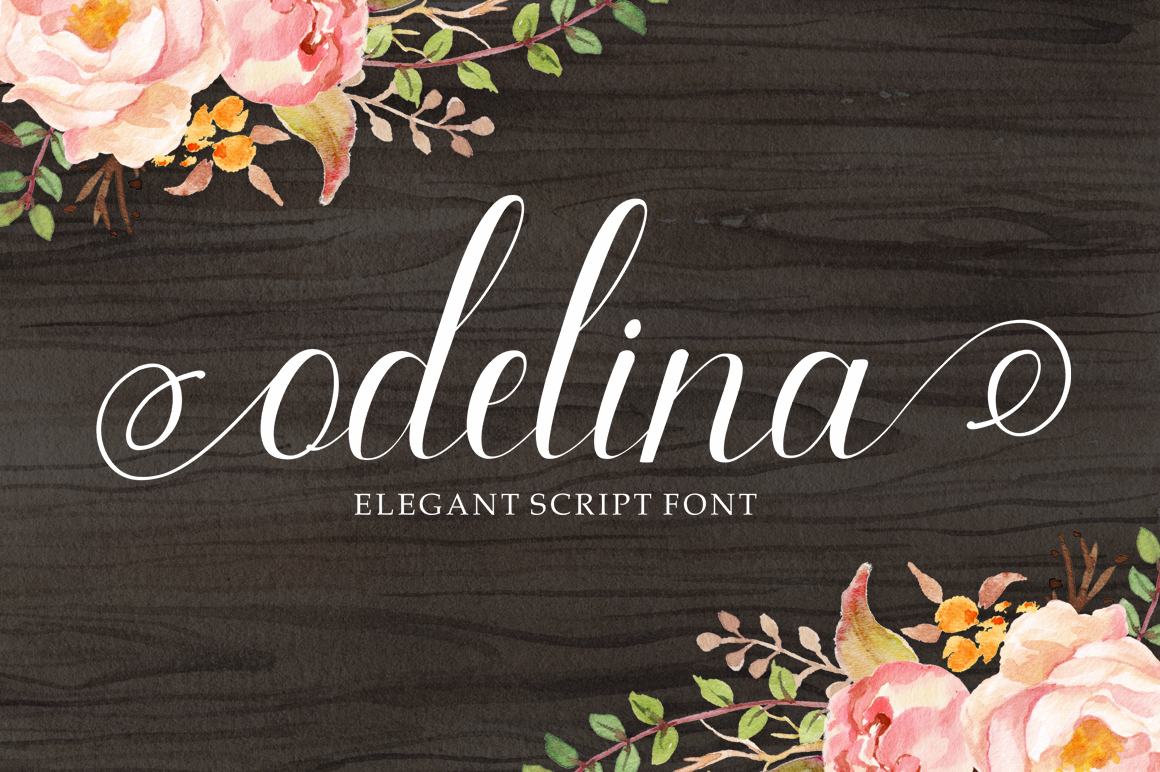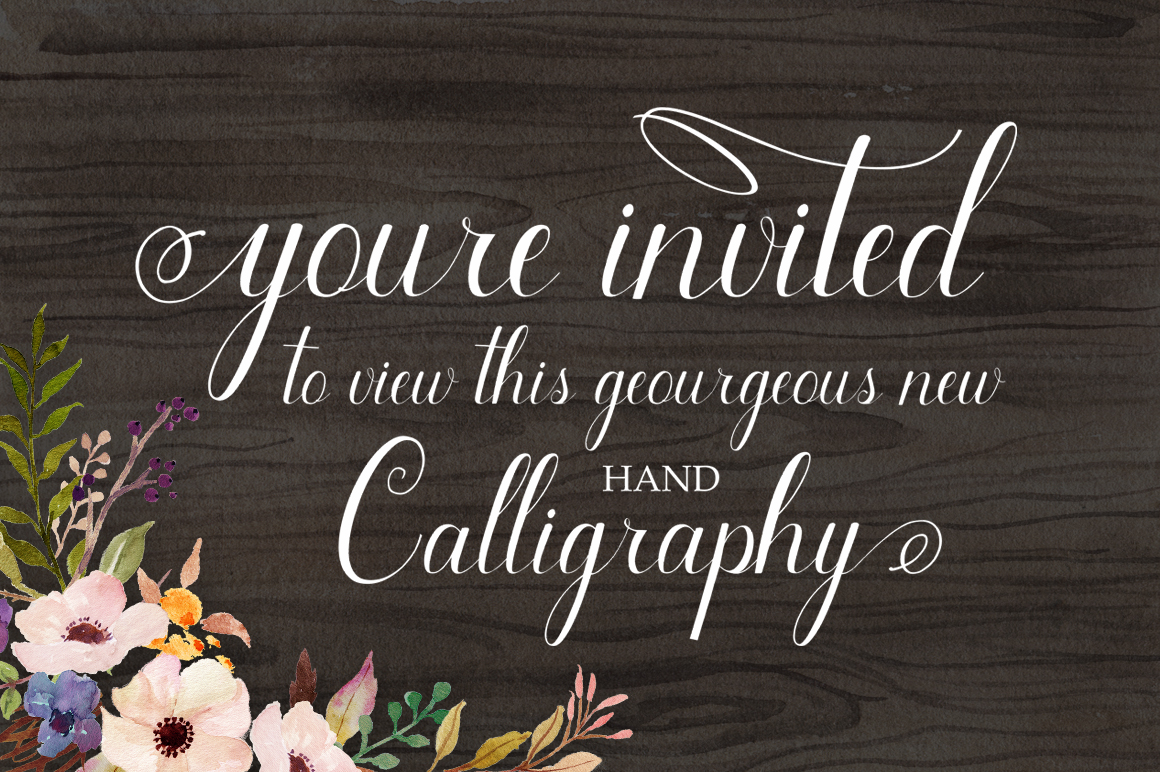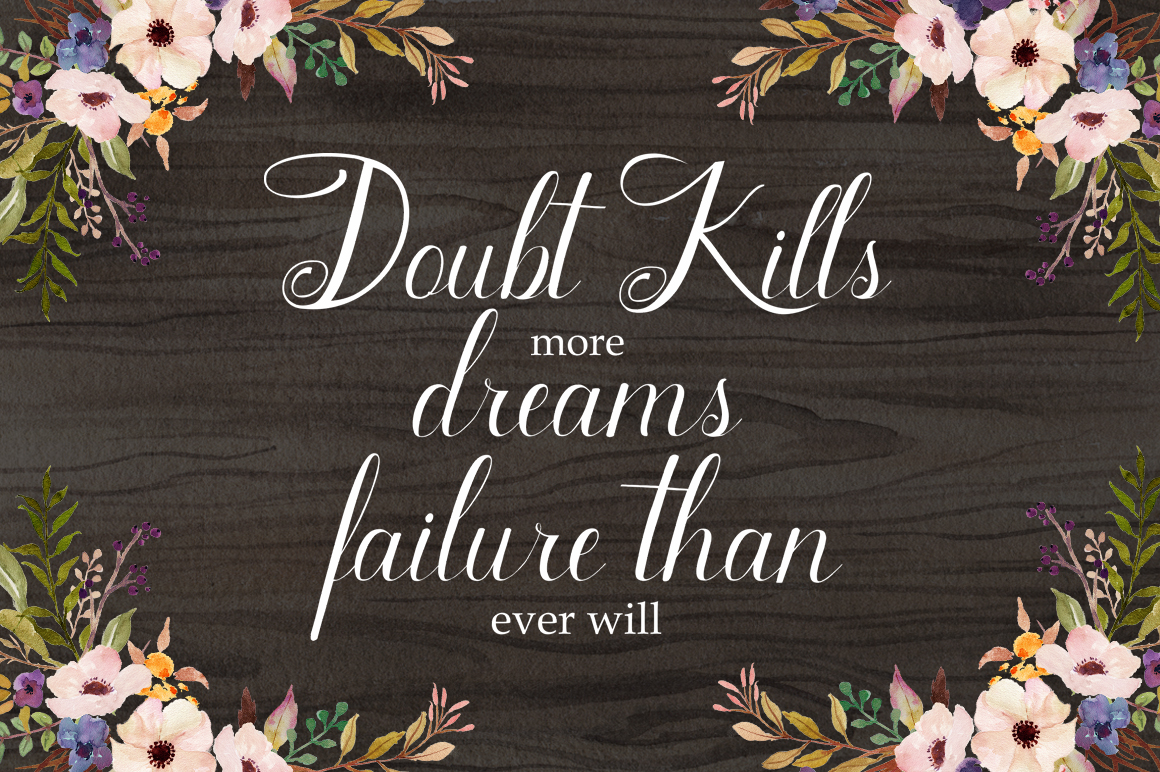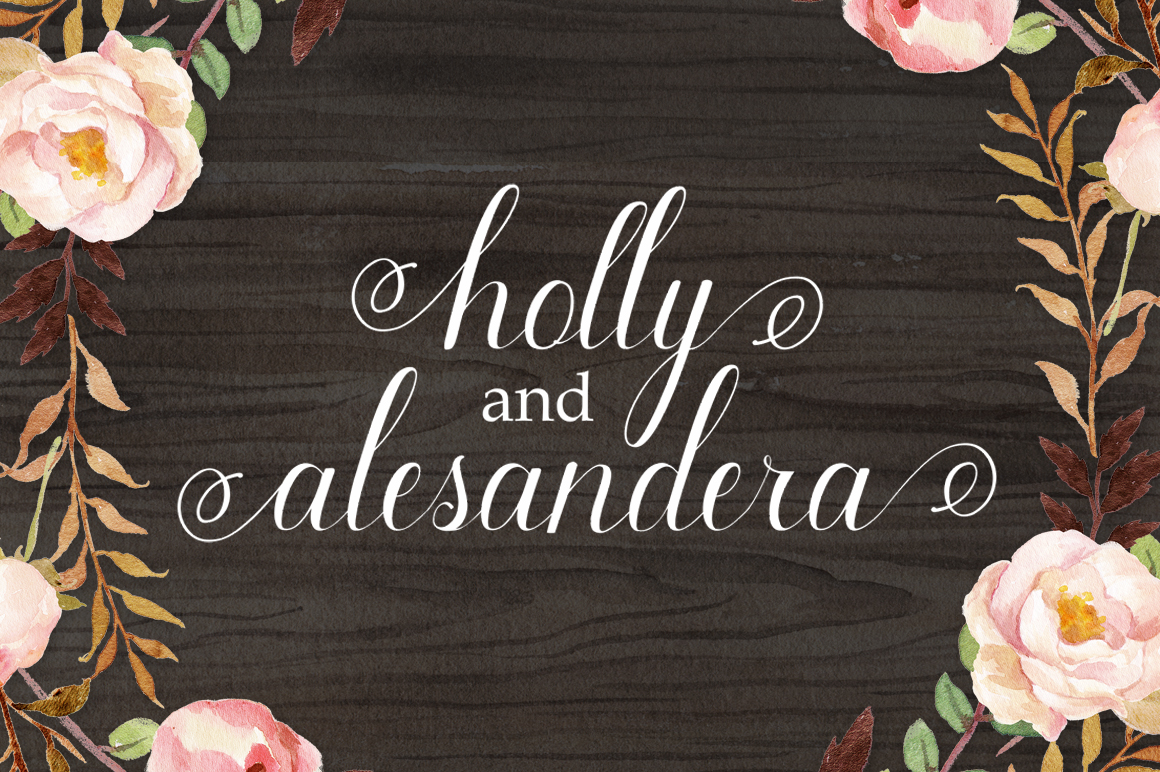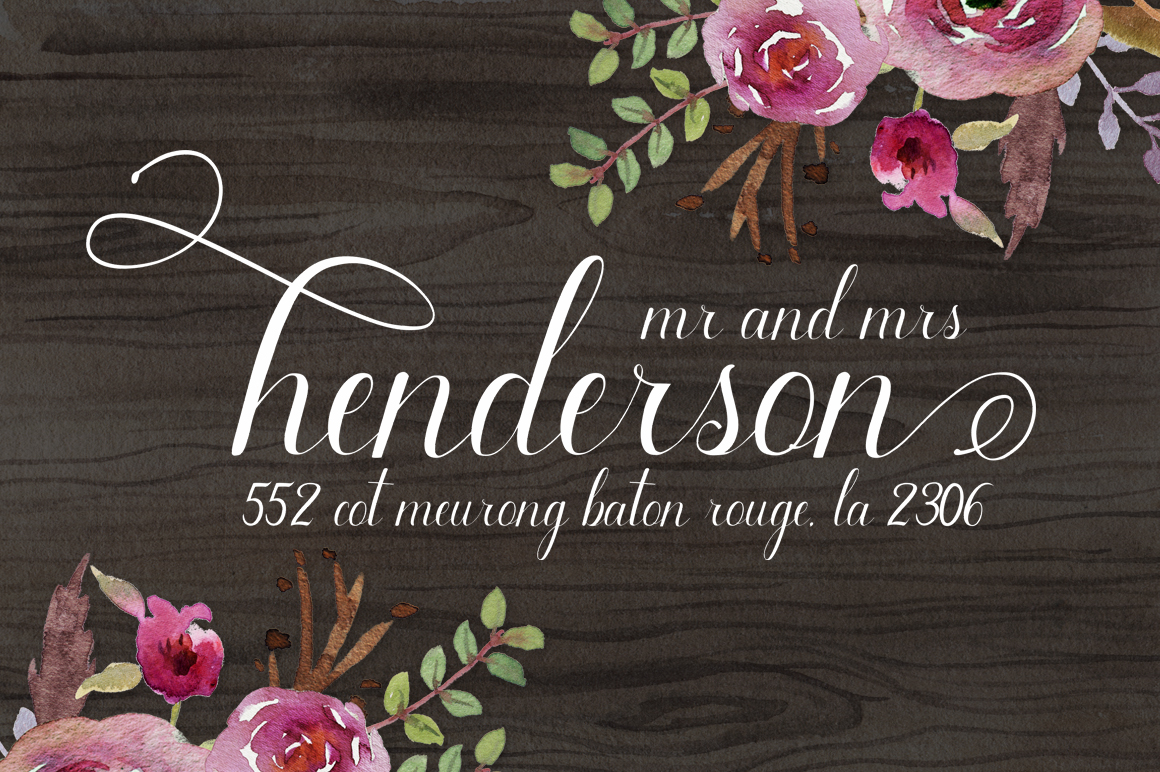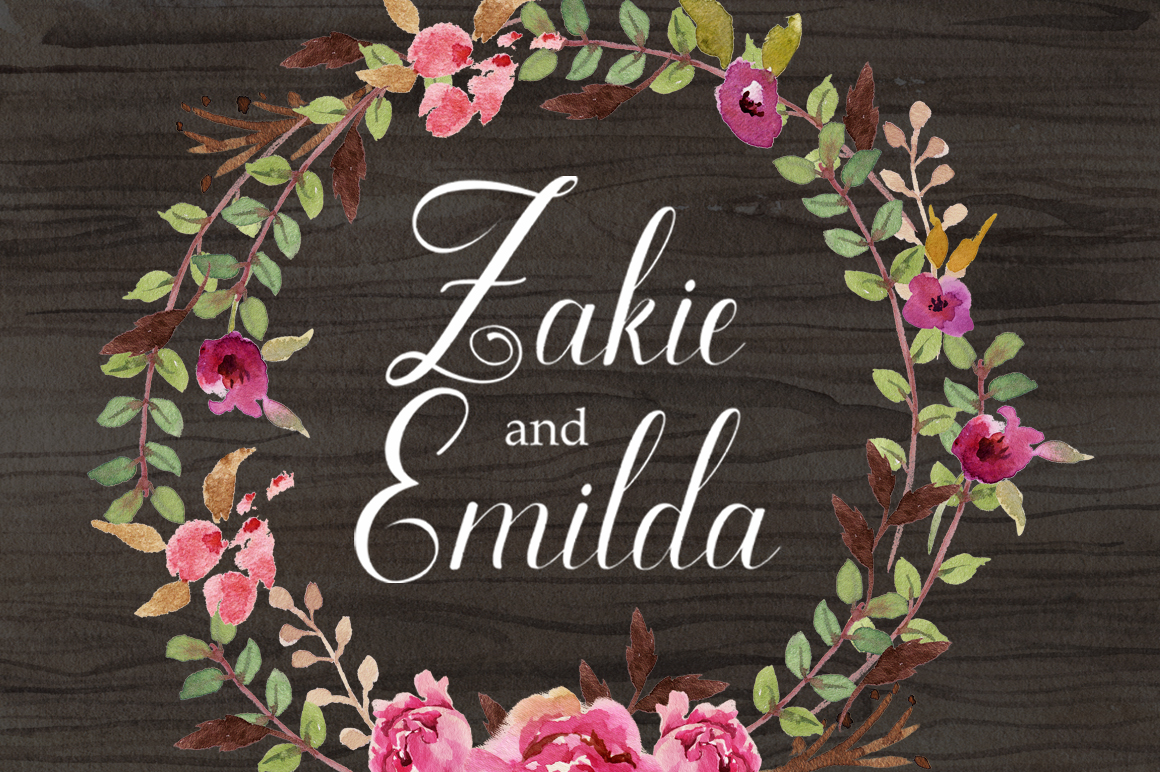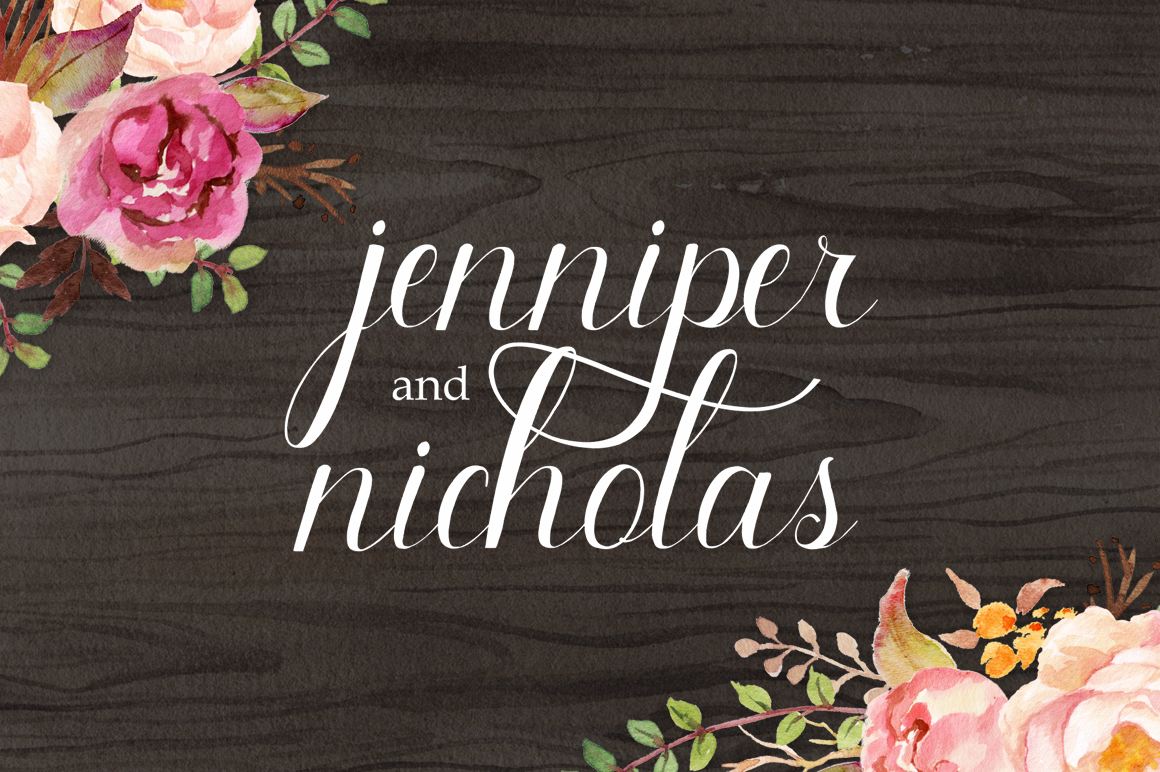
Odelina Font
About Odelina Font
Odelina is a handlettered type. The font carries a calligraphy look & feel which makes it the perfect font for invites, wedding designs, cards & signs and much more.
It comes with 309 unique handmade characters.